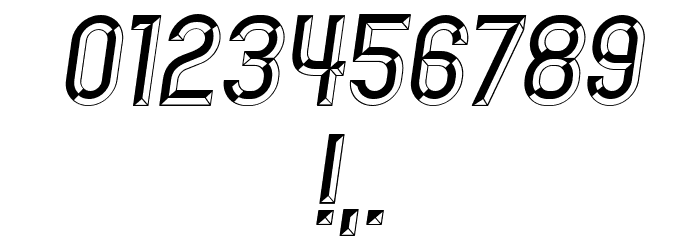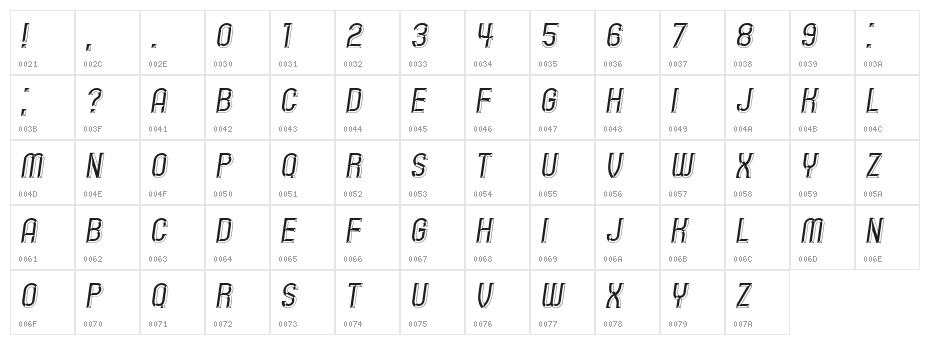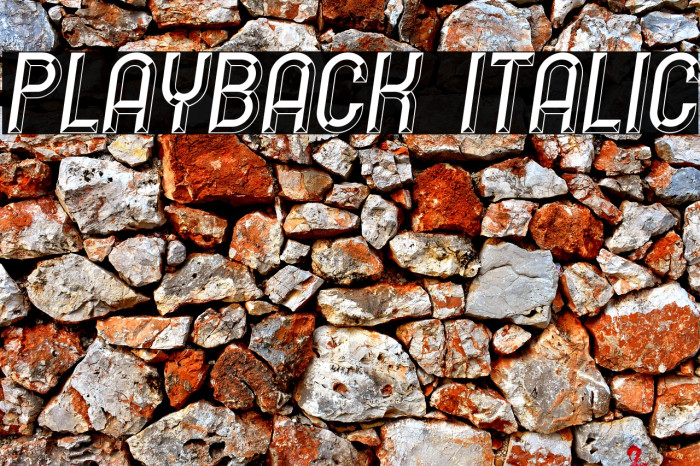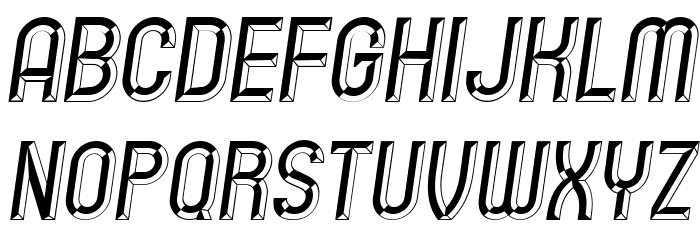
Playback Italic Font
Playback Italic Description
This font features a bold, italicized style with a unique 3D shadow effect that gives it a dynamic and eye-catching appearance. The characters are uppercase, with a consistent slant that adds a sense of motion and energy. The strokes are thick and uniform, contributing to its bold presence. The shadow effect is created with a contrasting outline, enhancing the depth and making each letter stand out. This font is ideal for creating impactful headlines and titles, where a strong visual impression is desired. The spacing between characters is moderate, ensuring readability while maintaining its bold aesthetic.